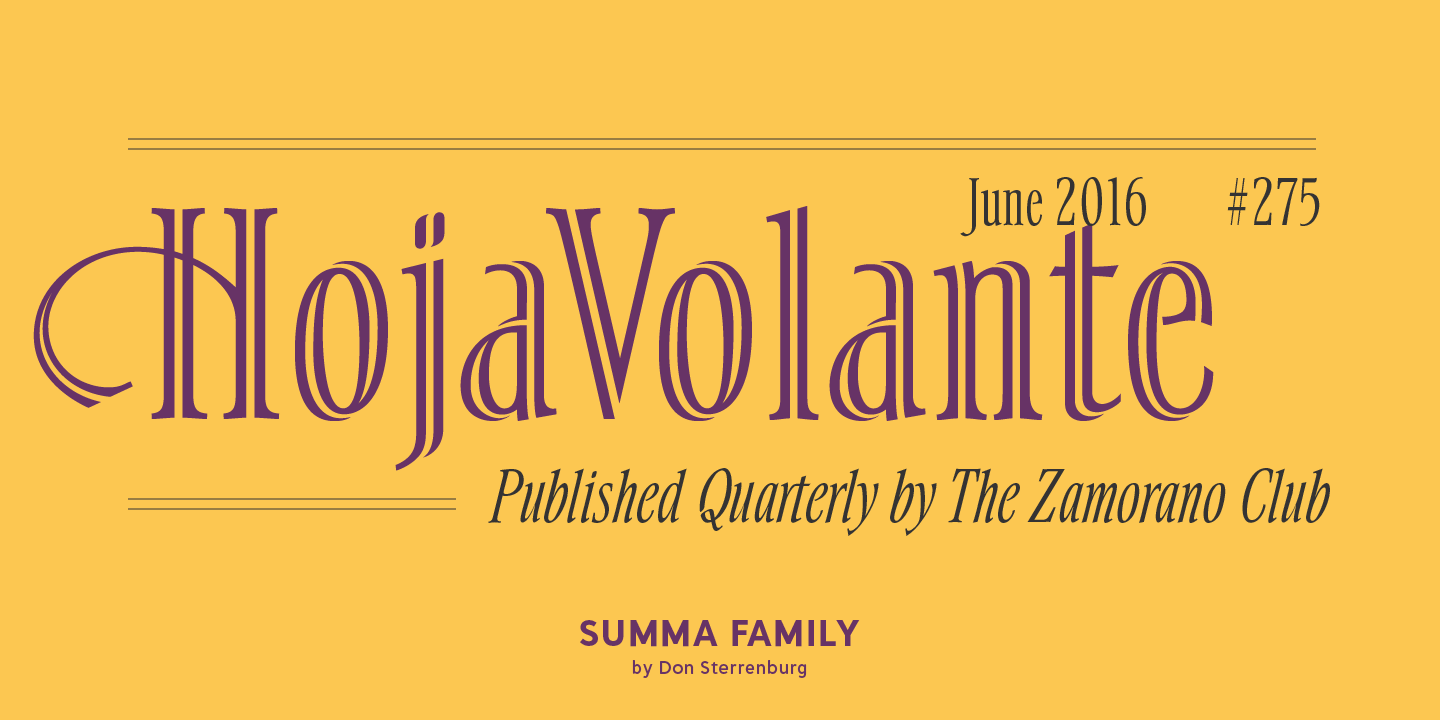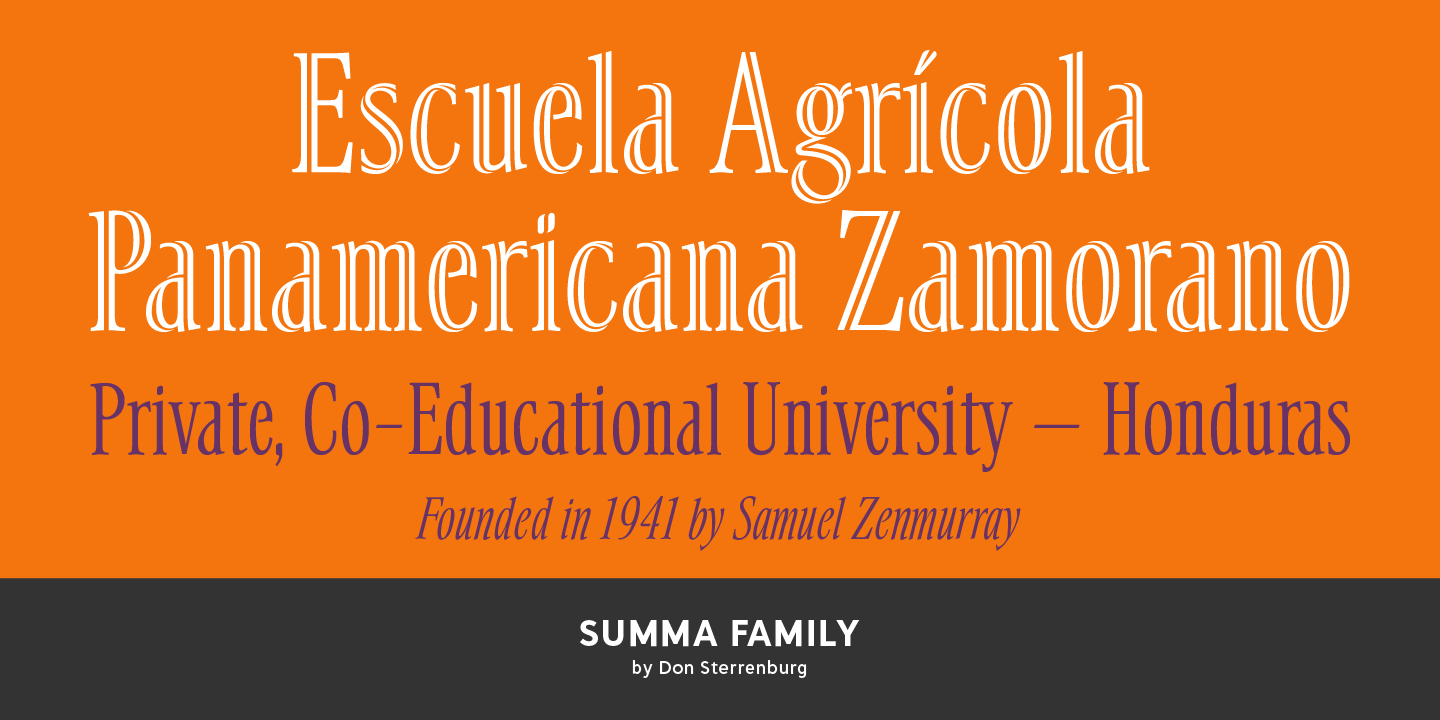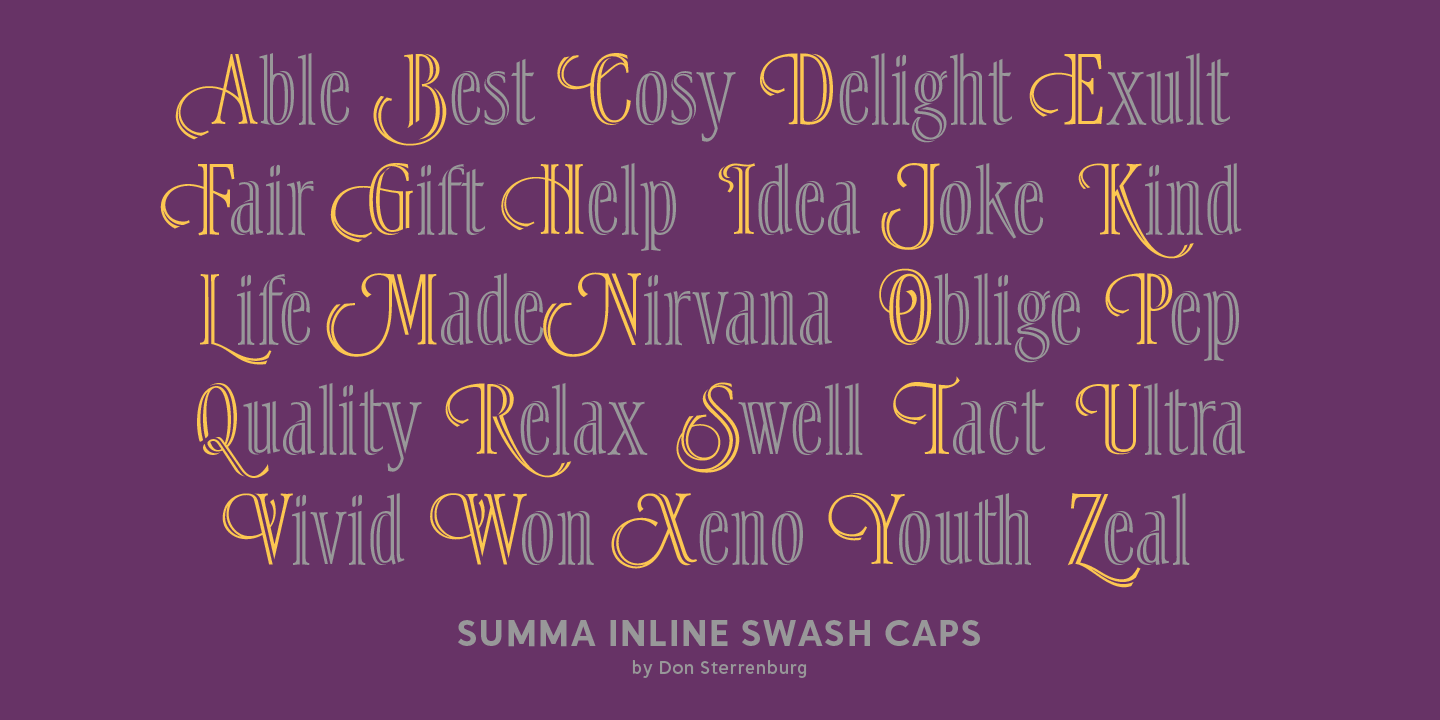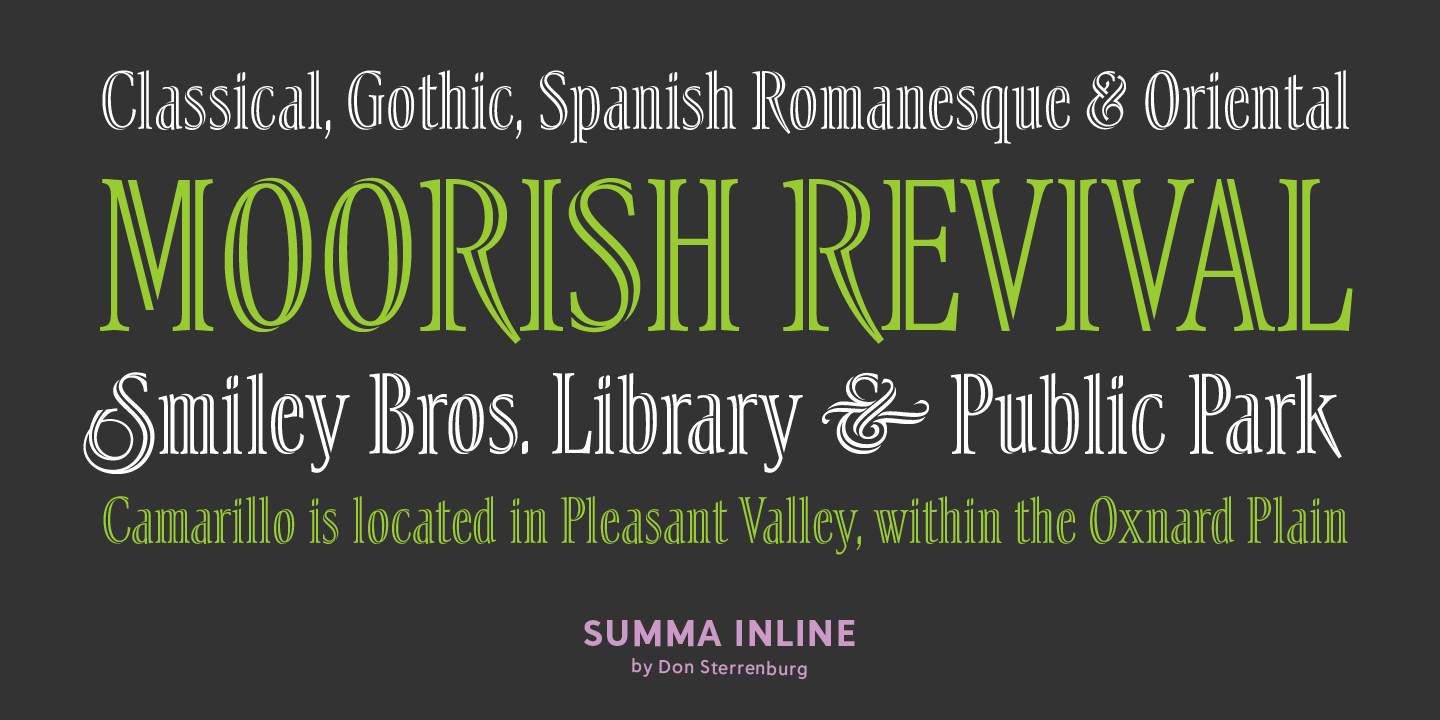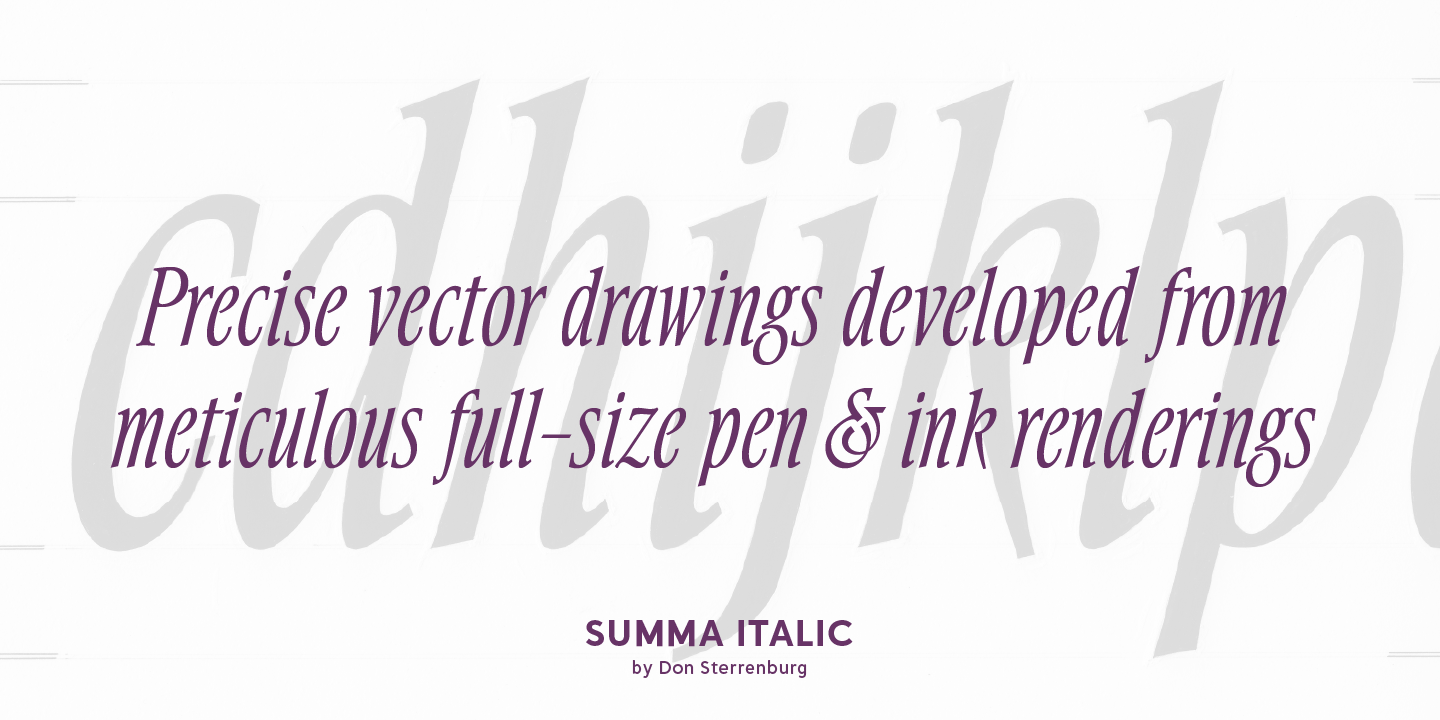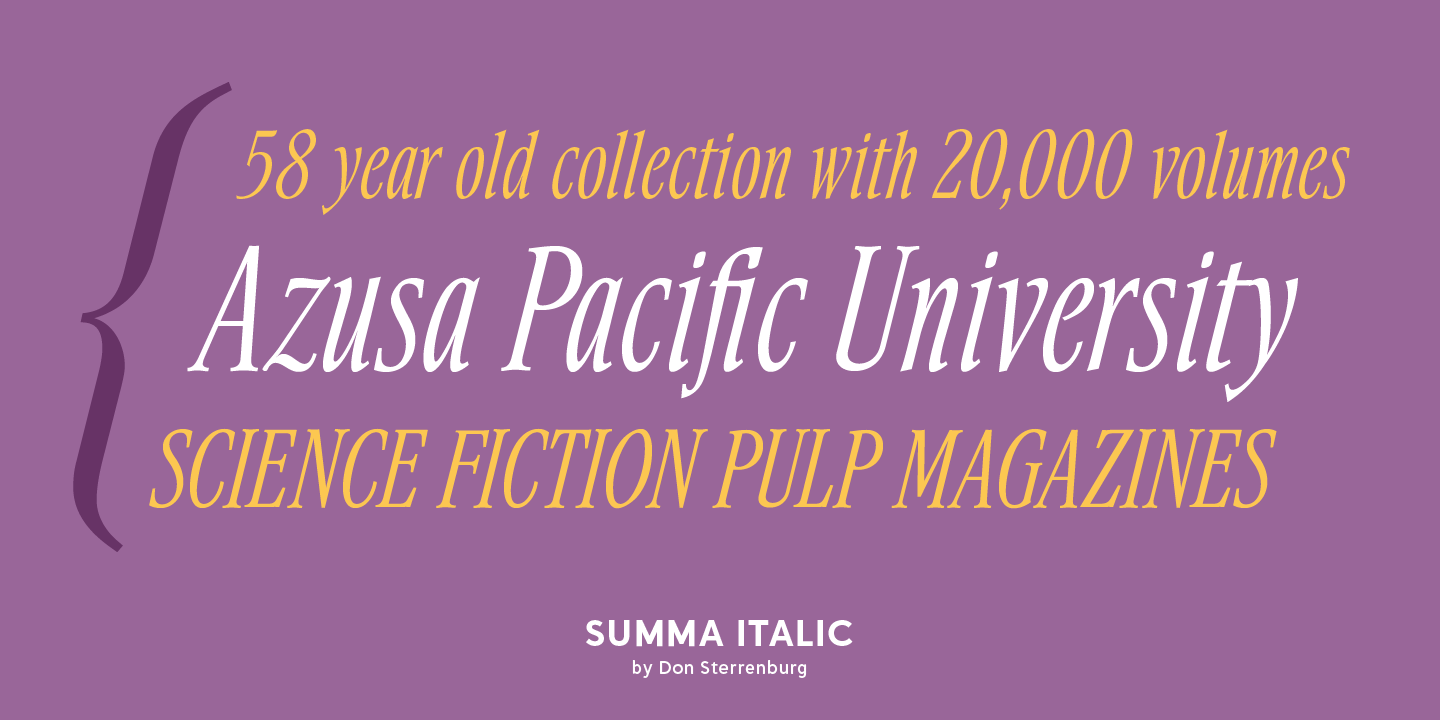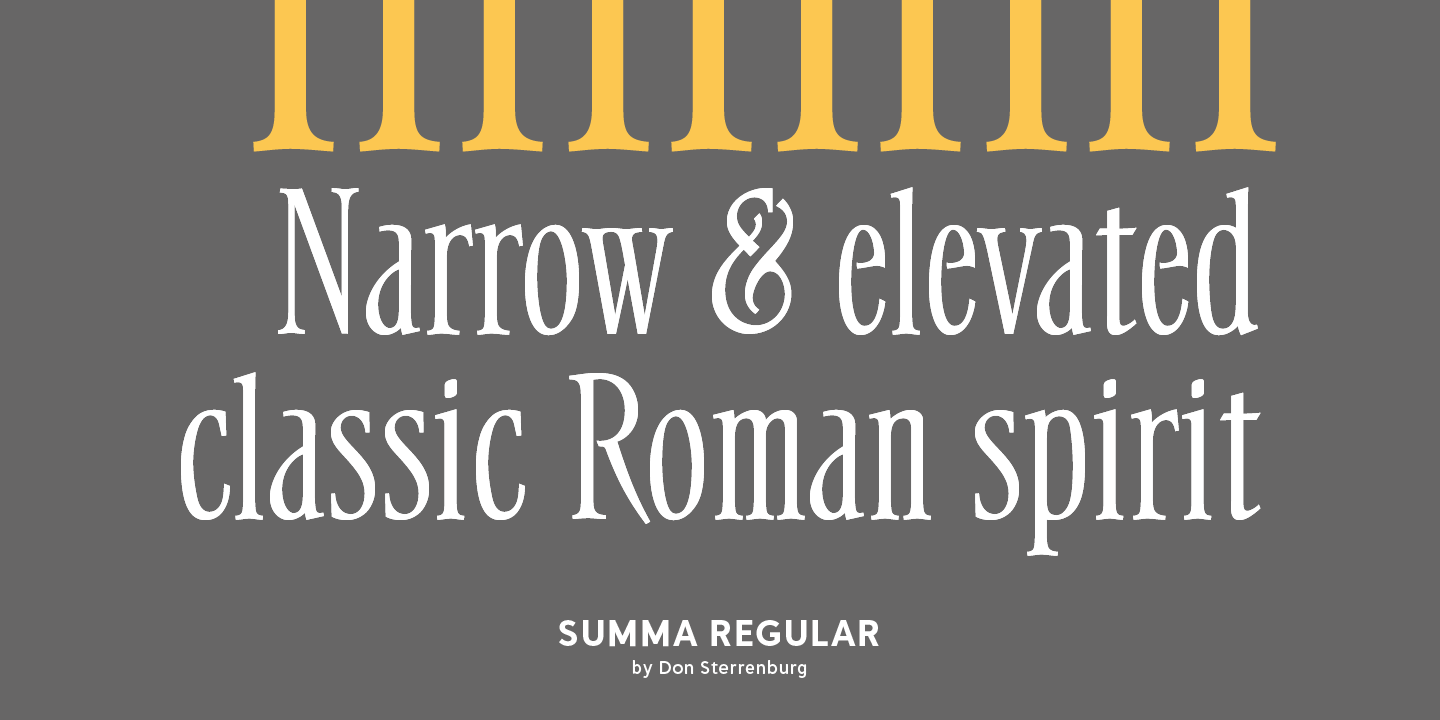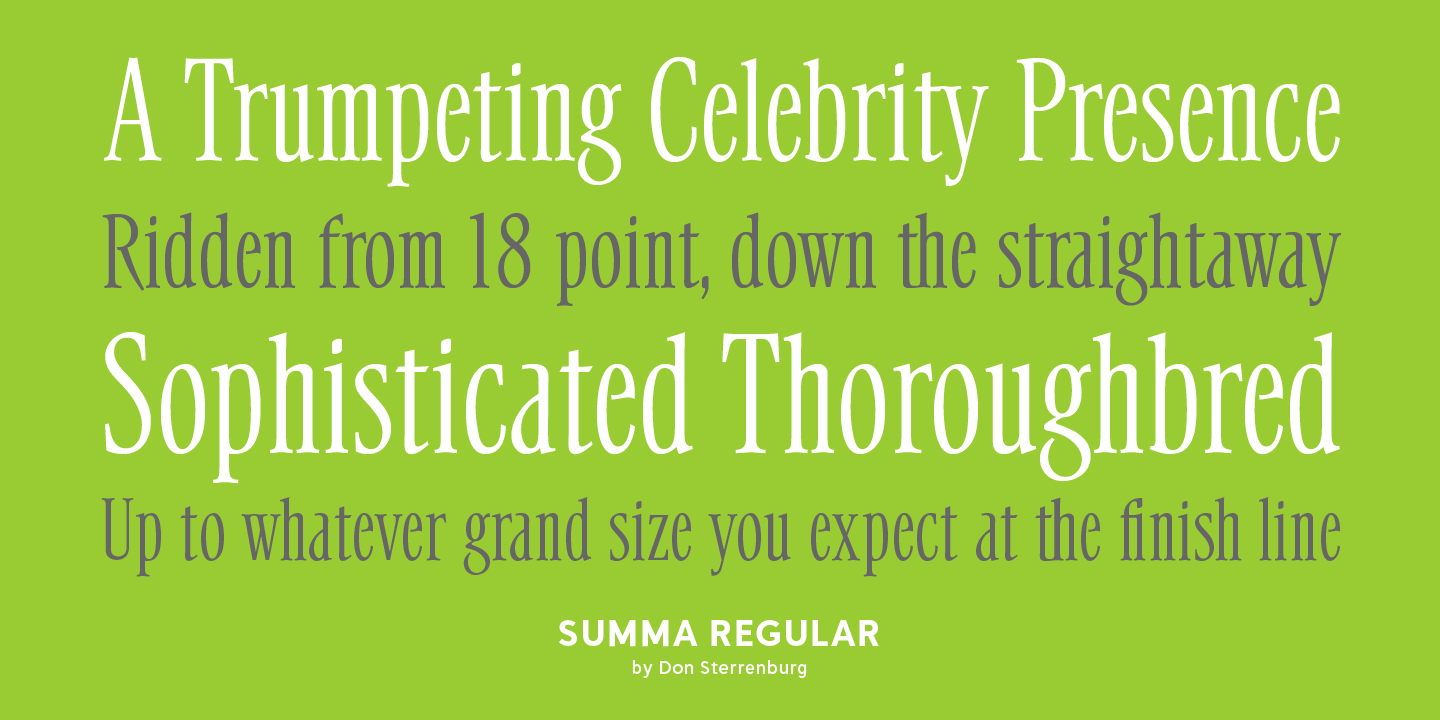
Summa
Buy NowAfter a career in the design industry and as an educator, Don Sterrenburg brought his wealth of knowledge and experience to bear in creating Summa. Sterrenburg is truly a master in the art of pen and ink.
The resulting typeface is a testament to the effort of everyone involved. The classic roman spirit and bracketed, cupped serifs together with the narrow width and elevated x-height of Summa give it a lofty, elegant appearance and an economic use of space. The 'true italic? counterpart style (not simply slanted or oblique) has a more calli